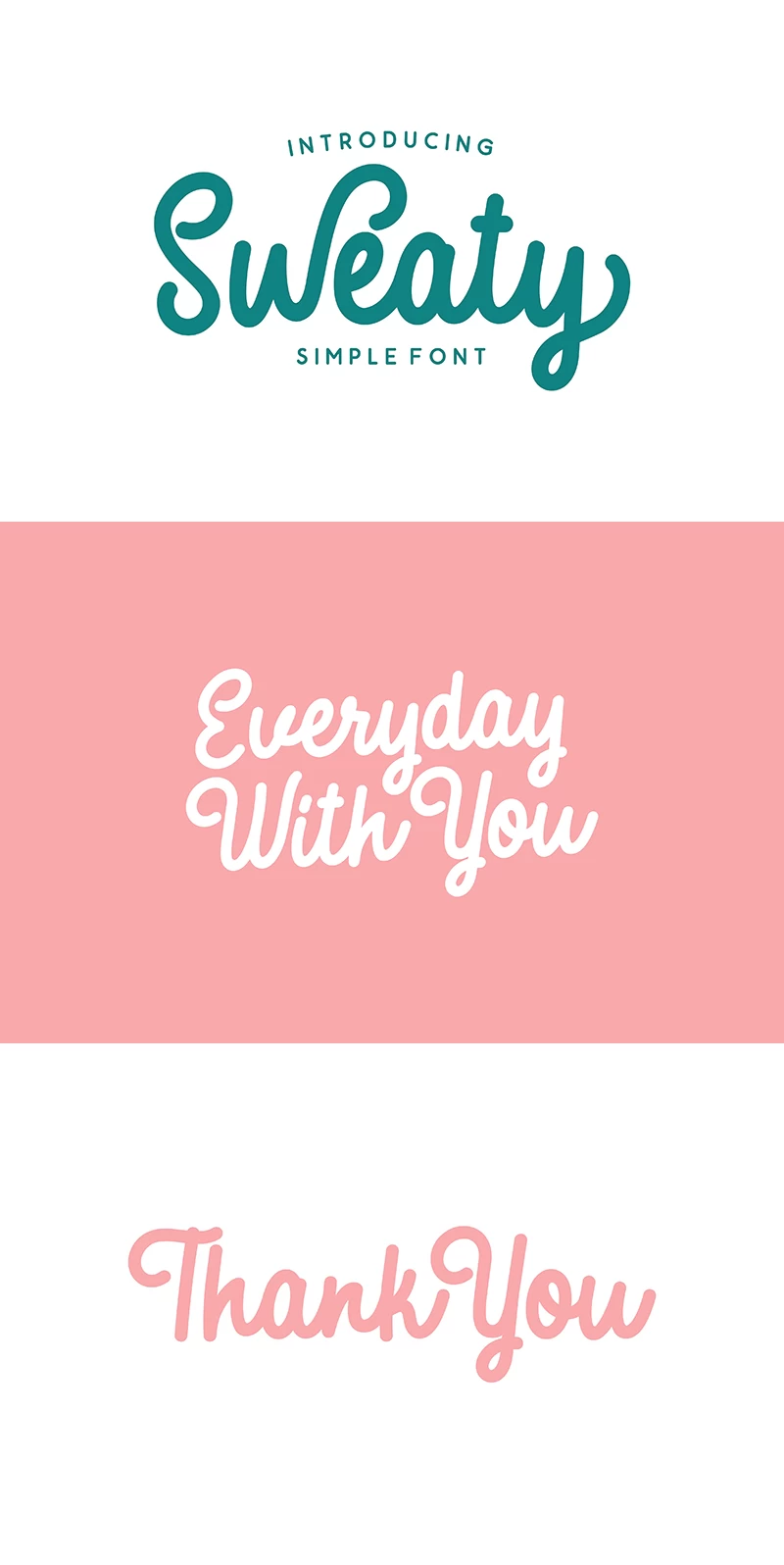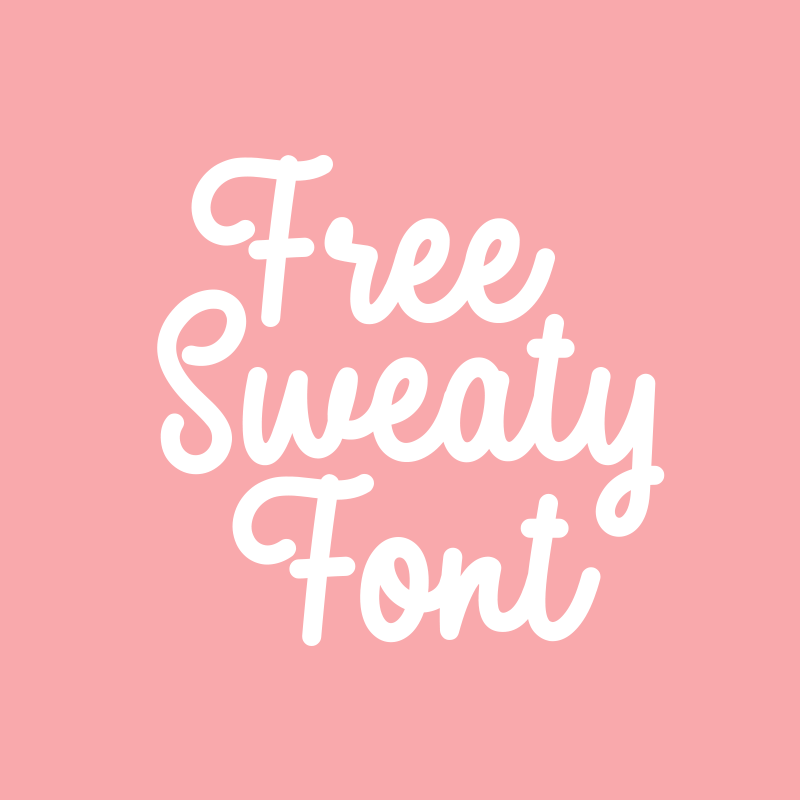
Free Sweaty Font:
In the designer’s own words “Sweaty is a simple script typeface which is simple and funny. This font is perfect for a logo, quotes, apparel design, wedding invitation, and much more. You can use the alternate to create your own customized lettering!”